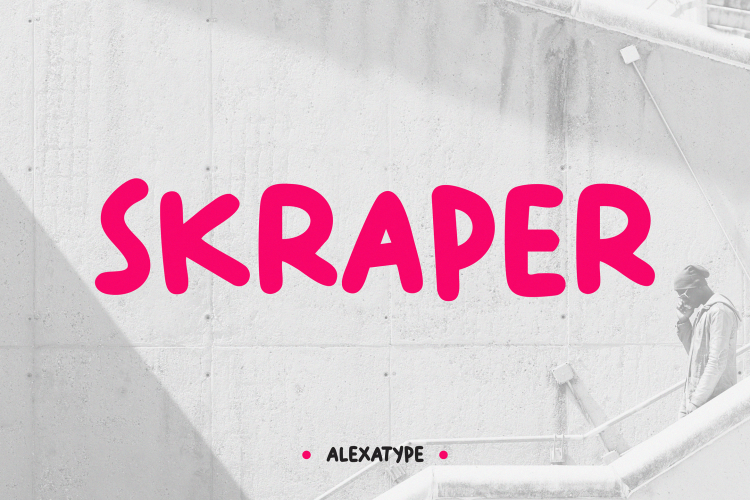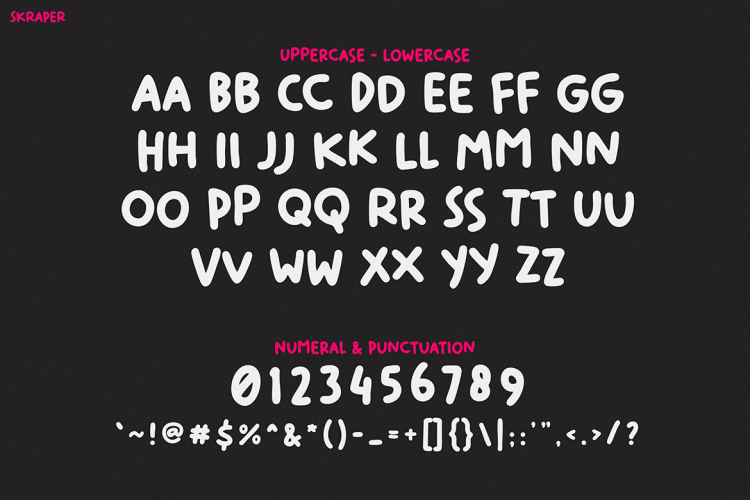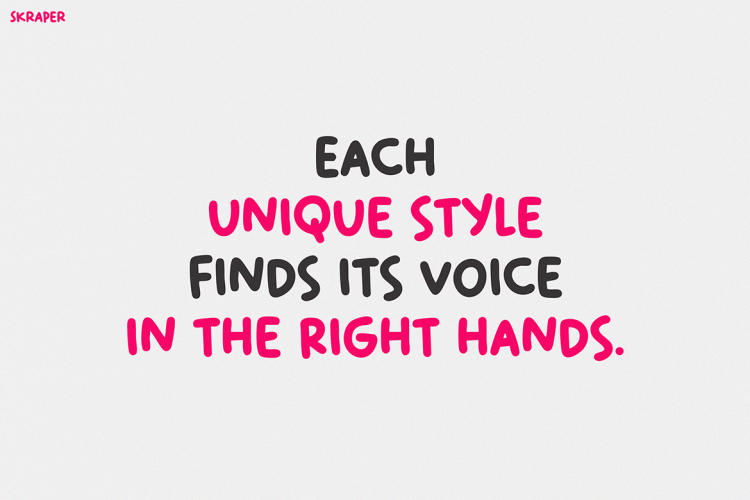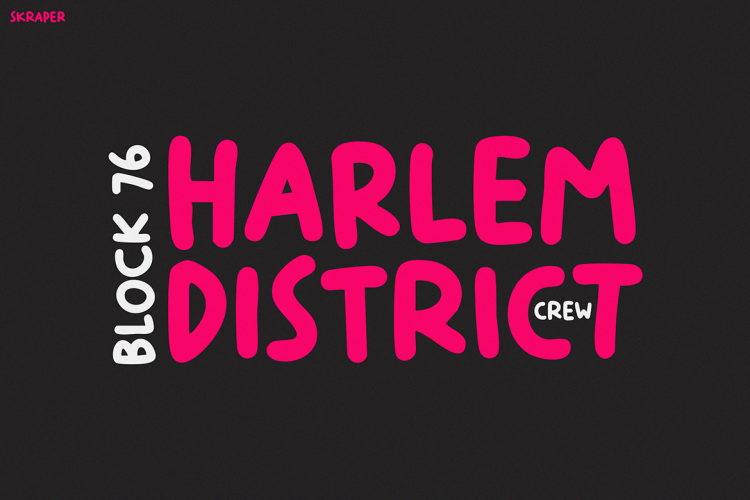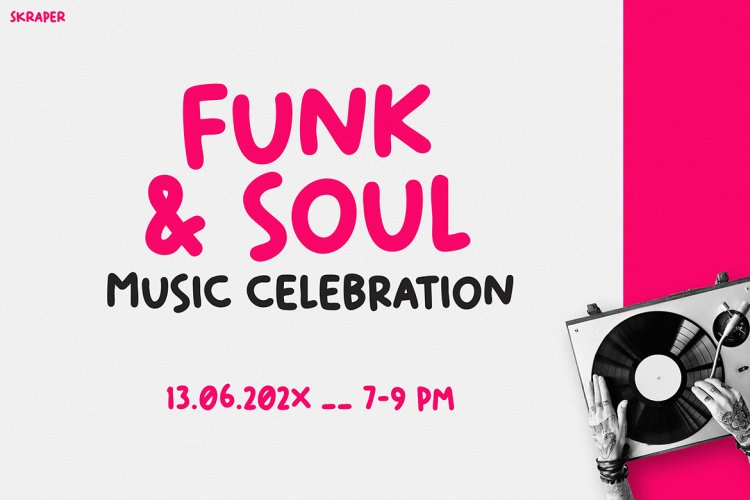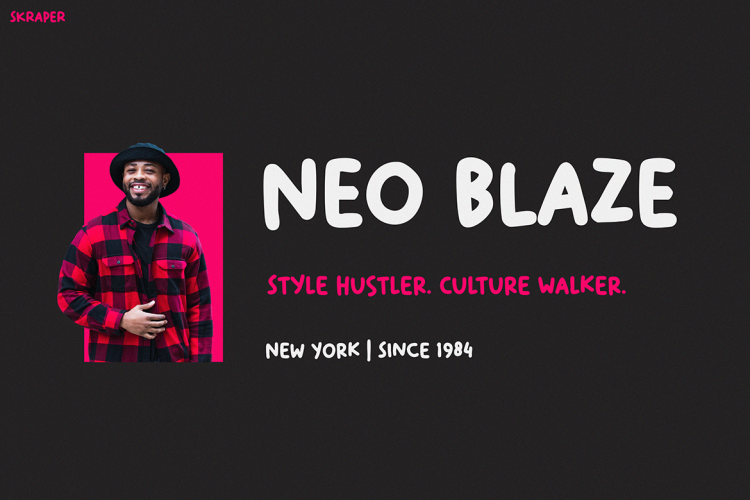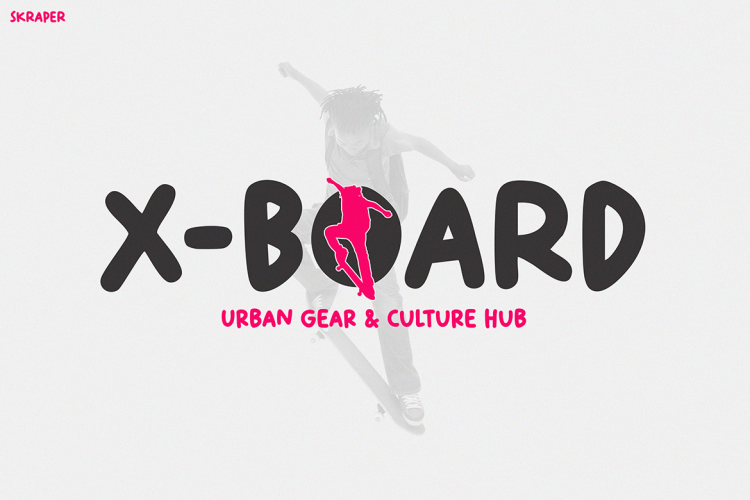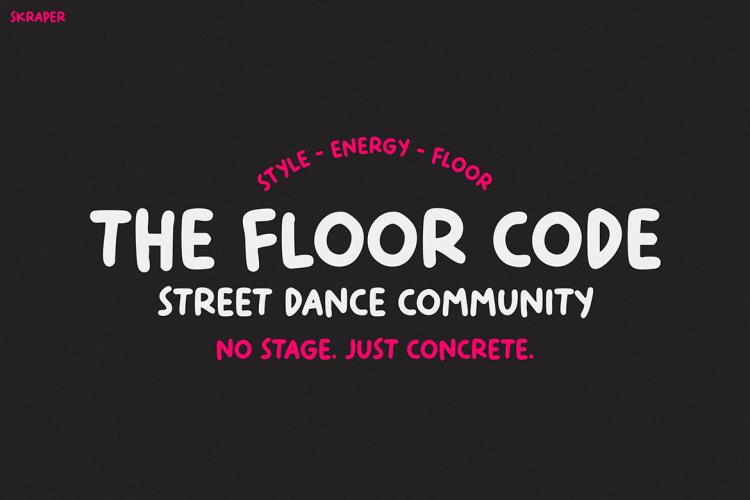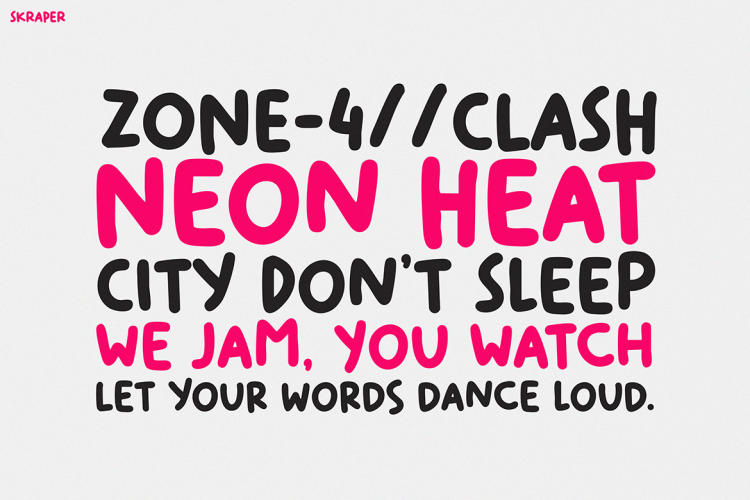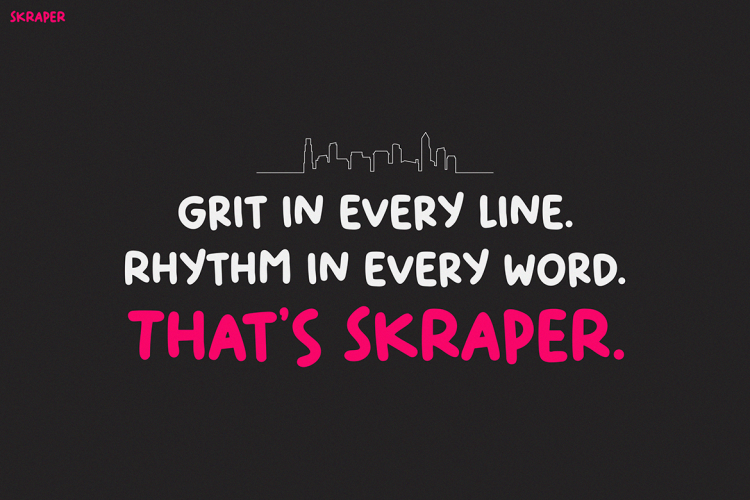
Kids Font SKRAPER: Urban Fun Meets Bold Expression
Kids Font SKRAPER is a playful and modern typeface. It blends street culture with bold, fun design. The letters are chunky, round, and full of attitude โ perfect for grabbing attention. This font is also a fantastic tool for educators and publishers working on materials for older children and tweens who want something bold and different from traditional childlike fonts
What makes this font stand out is its rhythm and movement. In fact, each curve feels alive and inspired by graffiti, hip-hop, and city life. Moreover, it looks handcrafted but remains clean and easy to read. With SKRAPER, you can speak to that in-between age group that craves uniqueness and cool vibes.
As a result, SKRAPER is perfect for posters, branding, T-shirts, or media aimed at kids. Wherever bold style is needed, this font adds personality. Itโs funky, loud, and confident โ just like the young audiences itโs made for.
Perfect For:
Creative Designers, Kids’ Brands, and Urban Projects
Kids Font SKRAPER works well for designers who want something cool and expressive. Whether you’re working on streetwear, youth zines, or party flyers, this font adds impact.
In particular, it speaks to tweens and older children. Unlike childish fonts, SKRAPER feels edgy and relevant. So, it’s a great pick for teachers, youth camps, or publishers aiming for modern appeal.
Additionally, event creators, street dancers, and musicians will love this typeface. Its energy makes every word move. Because of that, your designs will feel more alive and connected to the audience.
Final Thoughts
If you’re looking for a font that shouts style and fun, Kids Font SKRAPER is the right choice. Not only is it bold, but it also delivers rhythm and energy in every word.